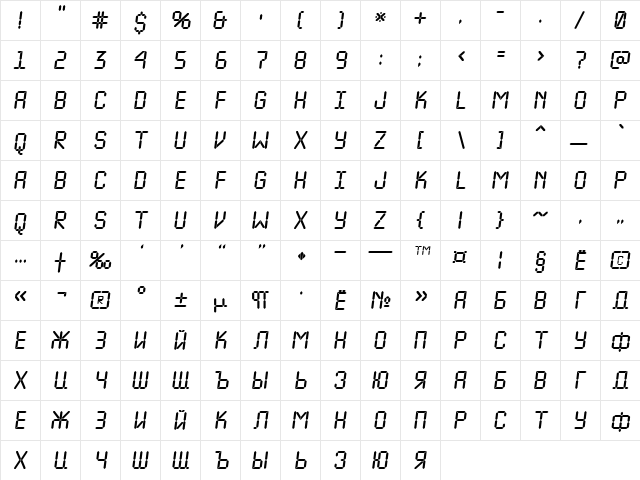
a_LCDNovaObl Regular Font Preview
a_LCDNovaObl Regular
a_LCDNovaObl Regular Font Details
Design Context for a_LCDNovaObl Typeface
a_LCDNovaObl offers clean, dependable letterforms without strong stylistic allegiance, making it a practical choice for designers who need flexibility.